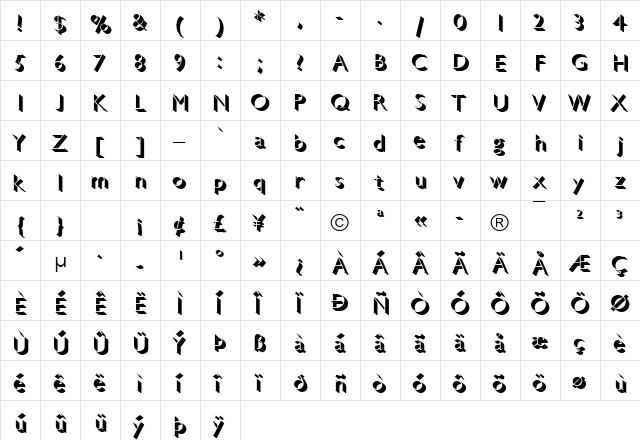
Gill Sans MT Shadowed Light Regular
| Foundry | Agfa Monotype Corporation |
| Designer | Eric Gill |
Design Context for Gill Sans MT Shadowed Light Typeface
Gill Sans MT Shadowed Light brings ornamental detail and strong personality to headlines and identities, where visual impact matters more than quiet functionality. Its slender proportions lend an understated elegance to any composition.
Font Pairing: Pair with a clean neutral sans-serif for body copy to let Gill Sans MT Shadowed Light's character lead without overwhelming the composition.
Pro Tip: Use Gill Sans MT Shadowed Light exclusively at display sizes — it was designed to be seen, not read at length. Let a neutral companion handle body copy.